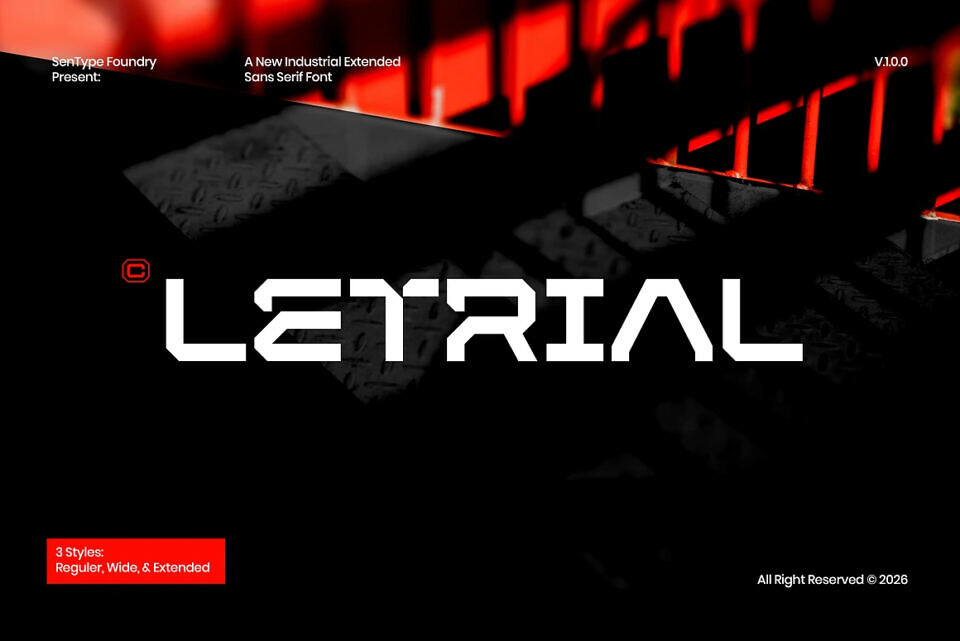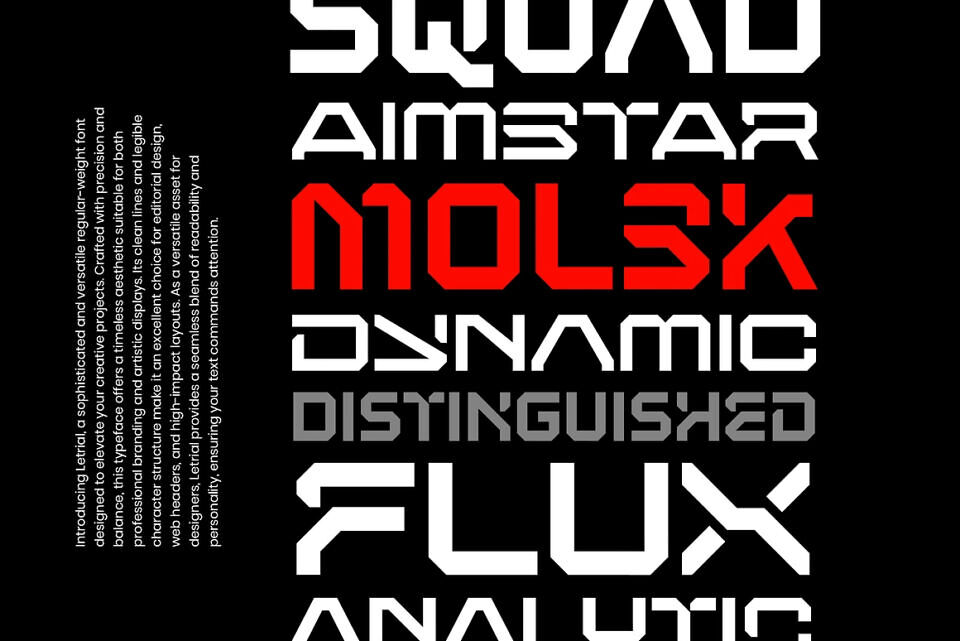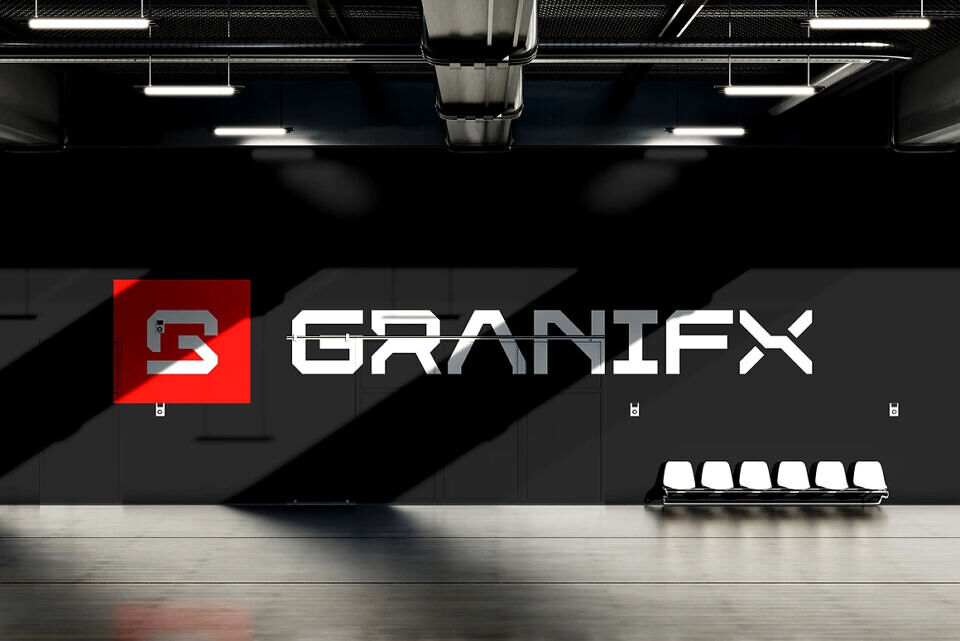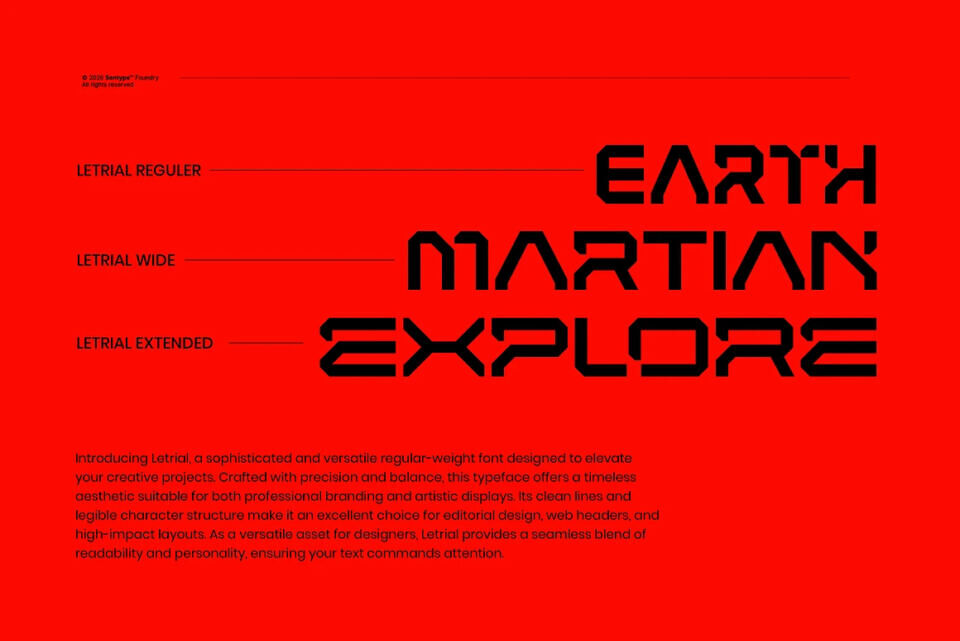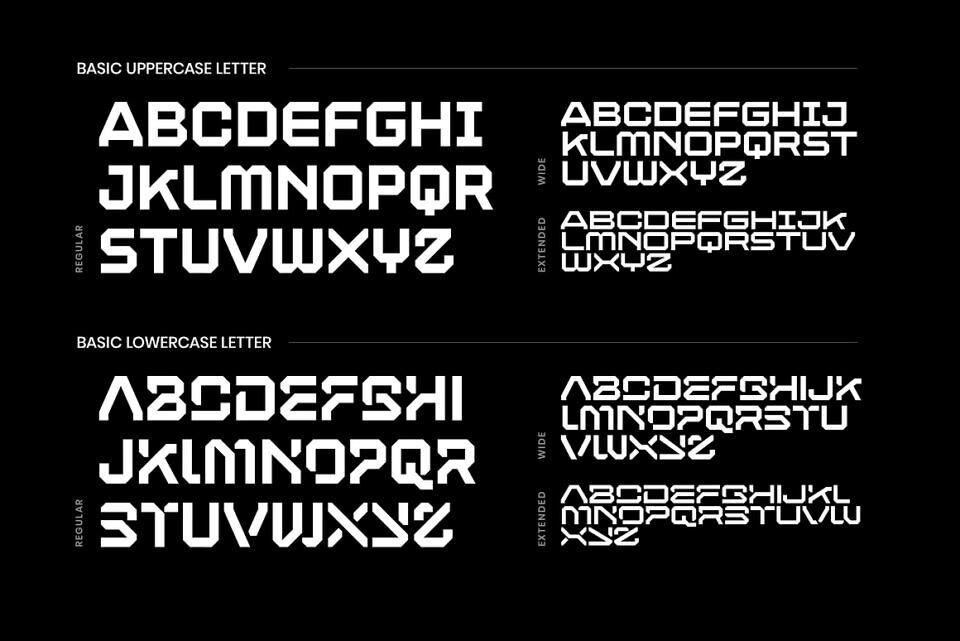
Letrial Font
Elevate your digital presence with Letrial, a robust industrial sans-serif font. Engineered for visual stability, it features three styles: Regular, Wide, and Extended, ideal for complex design grids.
Letrial exudes power and sophistication, making it perfect for sci-fi UI headlines, streetwear branding, automotive tech, athletic merchandise, and music festival banners, bringing a premium feel to futuristic and high-tech designs.